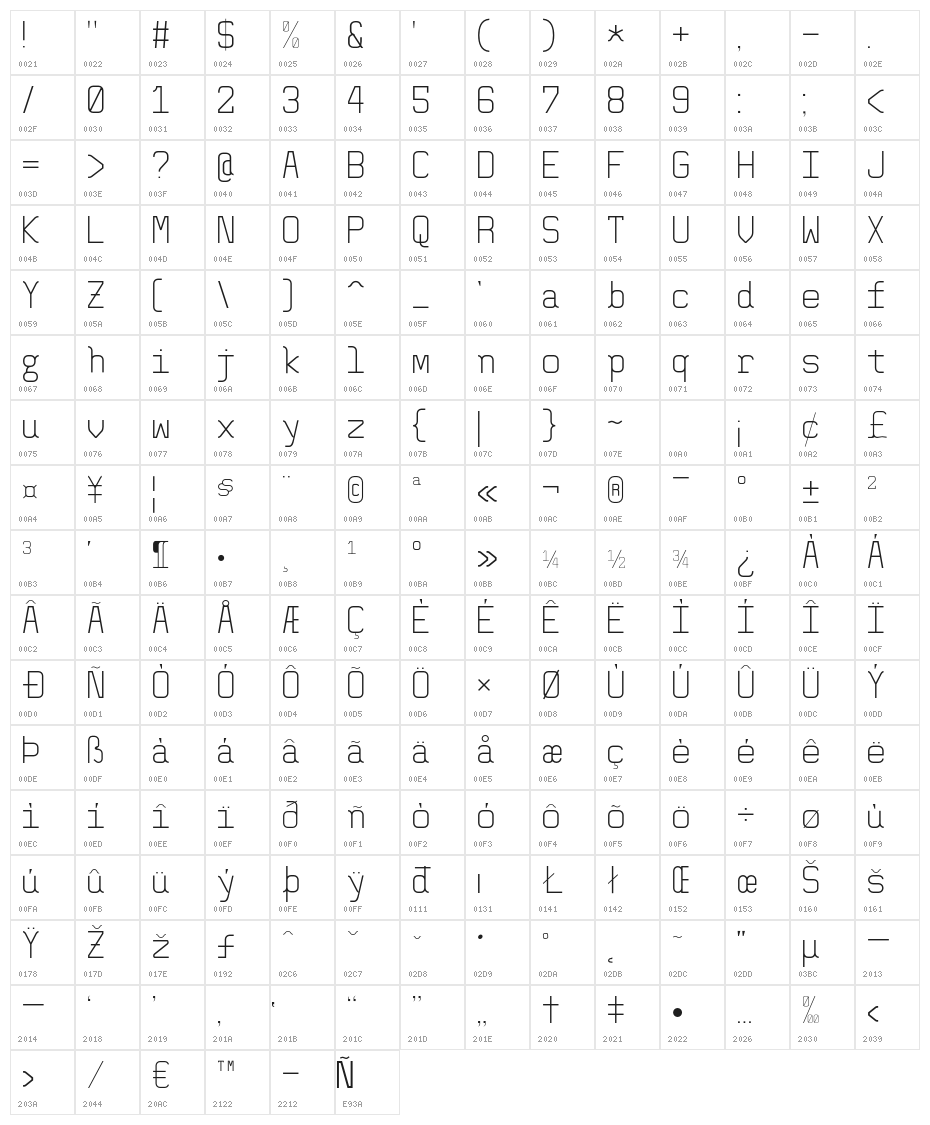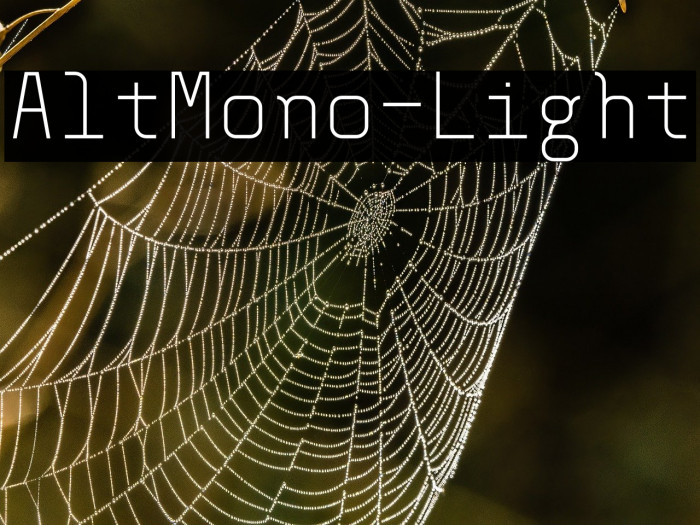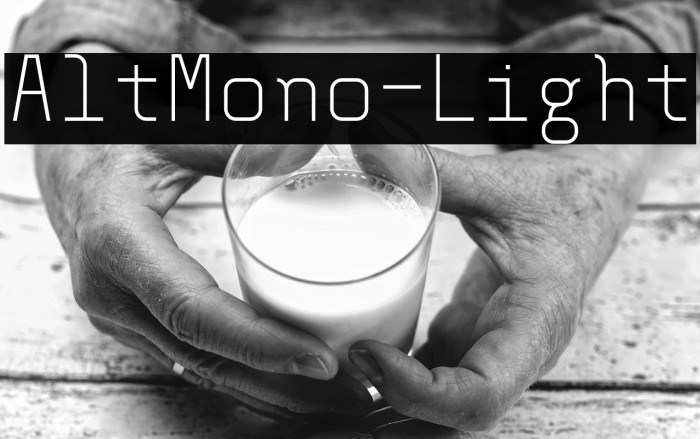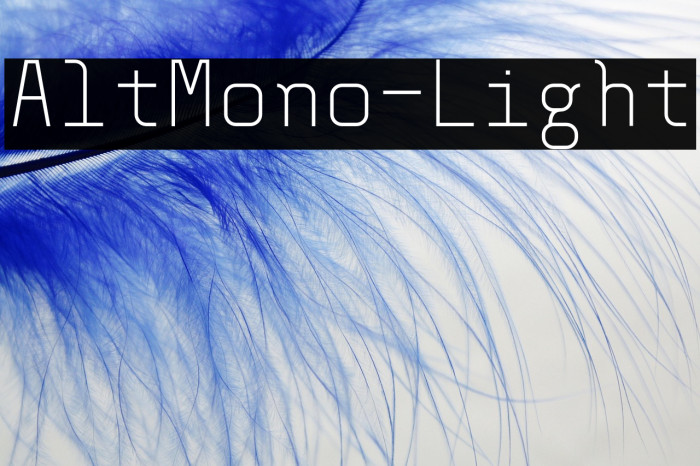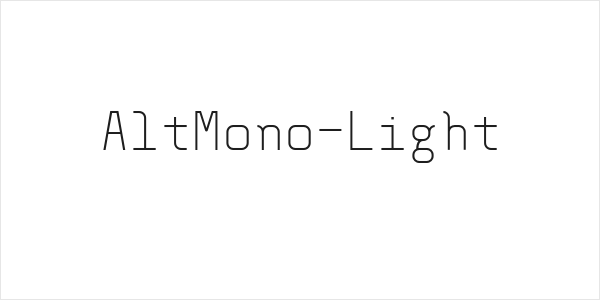
AltMono-Light Font
AltMono-Light Description
This font features a clean, geometric design with monospaced characters, giving it a technical and modern appearance. The uniformity in character width ensures a consistent and orderly look, ideal for coding and technical documentation. Its light weight adds a touch of elegance and readability, making it suitable for both digital and print media. The font's simplicity and clarity are enhanced by its minimalistic design, which avoids unnecessary embellishments, focusing instead on functionality and legibility. The characters are well-defined, with clear distinctions between similar shapes, ensuring easy readability even at smaller sizes. This makes it a versatile choice for various applications, from user interfaces to detailed reports.
| Use Case | Coding, Technical documentation, User interfaces |
| Proposed Projects | Perfect for coding environments, technical documentation, user interfaces, and minimalist design projects. |